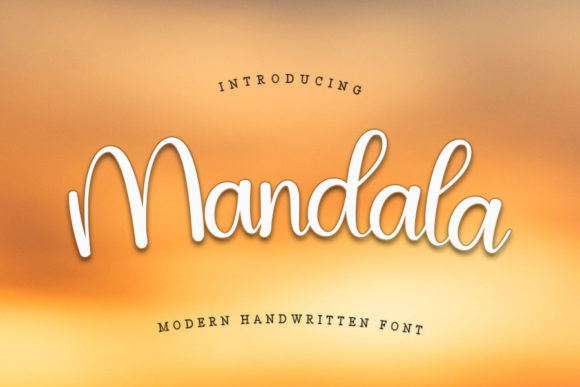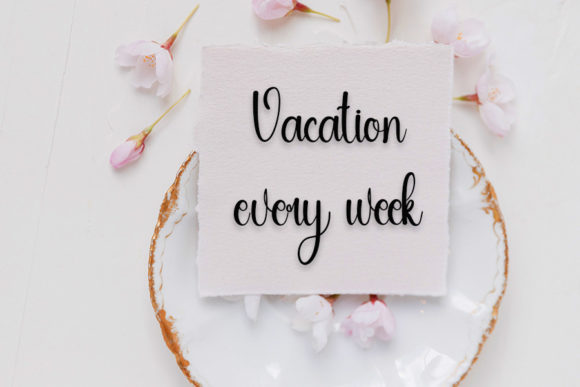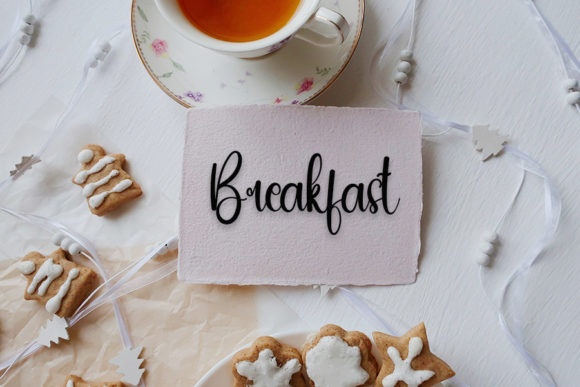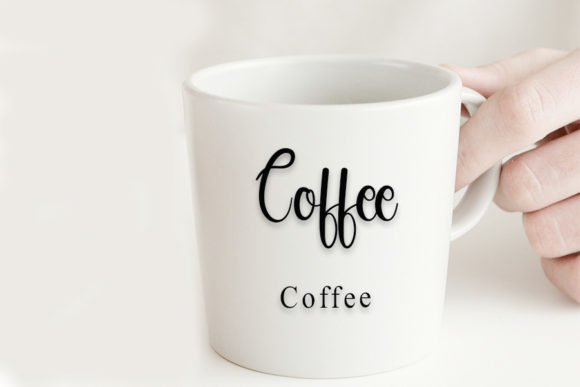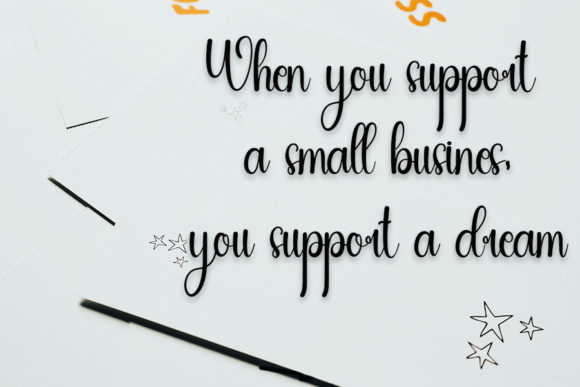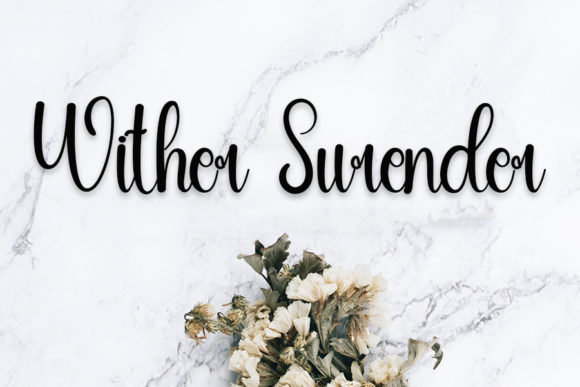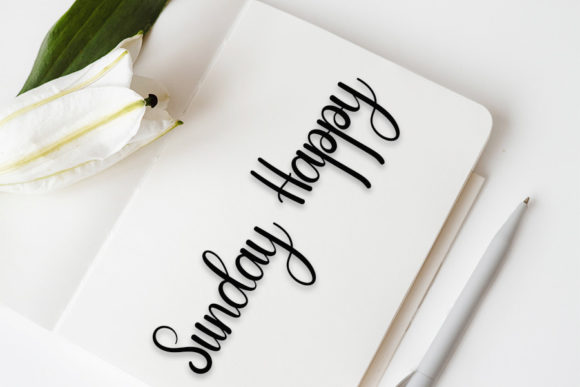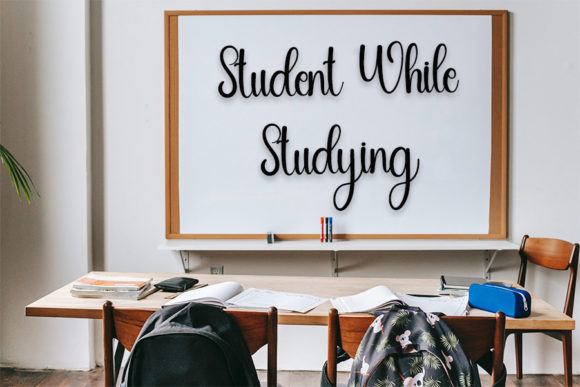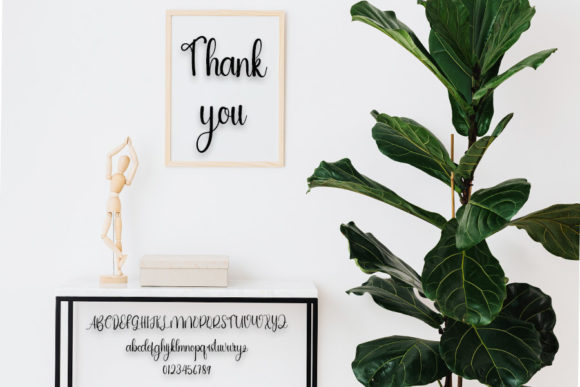
Mandala Font
“Mandala” Font: A Fusion of Timeless Calligraphy and Modern Elegance
Meet “Mandala” font—a captivating blend of traditional calligraphy and contemporary design. With its trendy handwritten style and flawless execution, “Mandala” stands out in the world of typography, exuding a sense of sophistication and charm.
Drawing inspiration from the graceful curves of classic calligraphy, “Mandala” infuses a modern twist, resulting in a font that feels both timeless and fresh. Its flowing lines and intricate details lend a sense of elegance to any project, making it a versatile choice for a variety of design applications.
One of the standout features of “Mandala” is its PUA encoding, which grants users easy access to all its glyphs and swashes. This means you can effortlessly customize your text, adding unique flourishes and accents to make it truly your own. Whether you’re designing a logo, crafting invitations, or creating social media graphics, “Mandala” offers endless possibilities for creative expression.
In addition to its visual appeal, “Mandala” font also evokes a sense of tranquility and harmony, much like its namesake symbol. Just as a mandala represents unity and balance, “Mandala” font brings a sense of calmness and coherence to your designs, making it ideal for wellness brands, yoga studios, and spiritual publications.